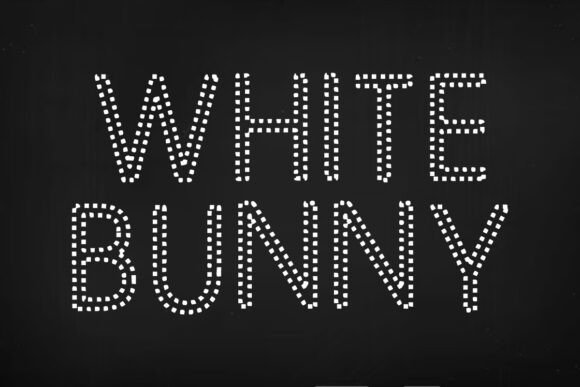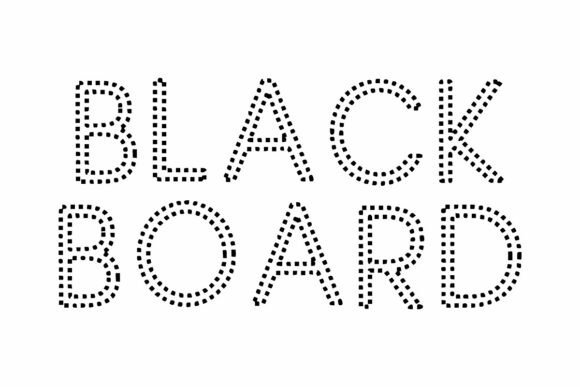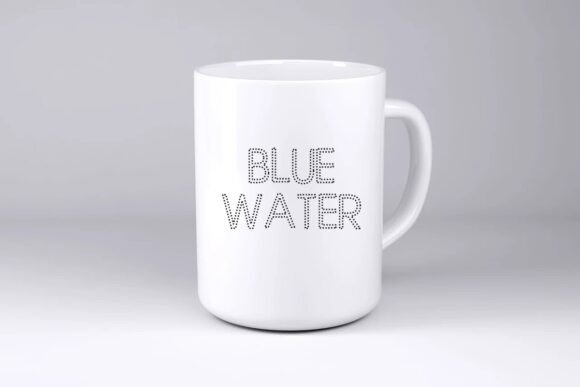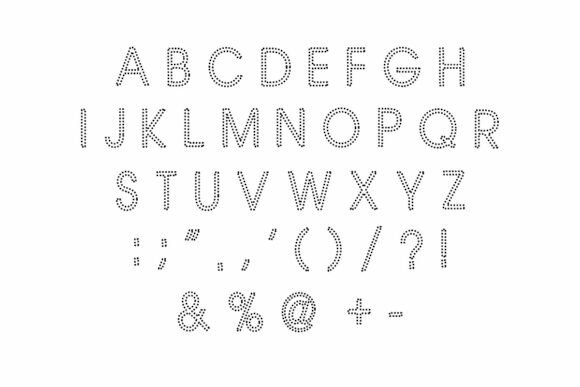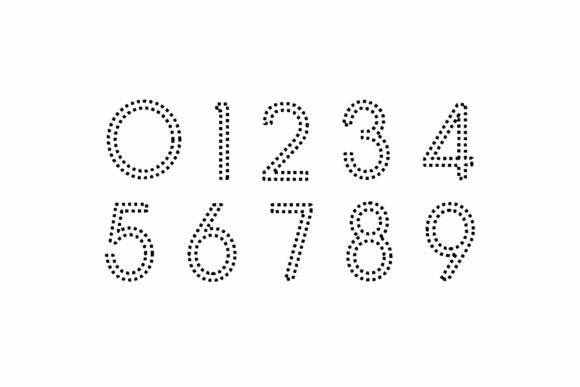
The Dotted Flash Font: A Polka Dot Paradise for Designers and Crafters
I’ll never forget the time I was working on a project for a children’s party invitation. I had the design concept nailed, but I was struggling to find the perfect font. That’s when I stumbled upon the Dotted Flash font, and it instantly became the missing piece to my design puzzle. This charming, polka dot-decorated display font has since become a staple in my design toolkit, and I’m excited to share its awesomeness with you! 😊
An Honest Review of Dotted Flash
- ✅ Easy to read: Despite its playful design, Dotted Flash is surprisingly legible, making it perfect for body text and headings.
- ✅ Friendly vibe: This font exudes warmth and approachability, making it ideal for designs that require a personal touch.
- ✅ Versatile: From digital designs to craft projects, Dotted Flash can be used in a wide range of applications.
- ✅ Simple yet effective: The subtle polka dot pattern adds visual interest without overwhelming the viewer.
While Dotted Flash is an excellent font, it’s not without its limitations. For instance:
- 🤔 Limited font weights: Currently, Dotted Flash only comes in a single weight, which might limit its use in certain design scenarios.
- ⚠️ Not suitable for long-form text: While readable, Dotted Flash is still a display font and might not be the best choice for extensive paragraphs.
Dotted Flash comes with a range of OpenType features and glyphs that can enhance your designs. For example:
- Stylistic alternates: Swap out standard characters for alternative glyphs to add more visual interest.
- Ligatures: Use ligatures to create more harmonious letter combinations.
The Designer Inspiration Behind Dotted Flash
While the true story behind Dotted Flash remains a mystery, it’s easy to imagine that the designer was inspired by the playful, carefree spirit of childhood. Perhaps they wanted to create a font that would bring a smile to people’s faces and add a touch of whimsy to their designs.